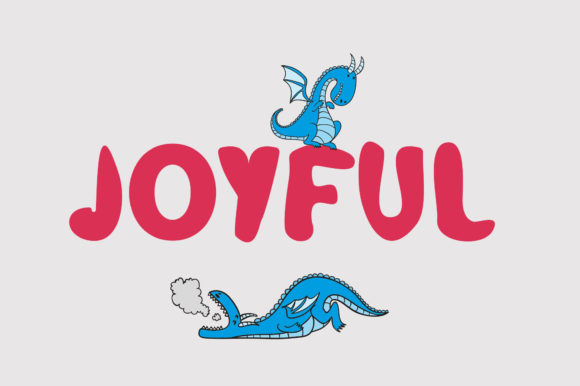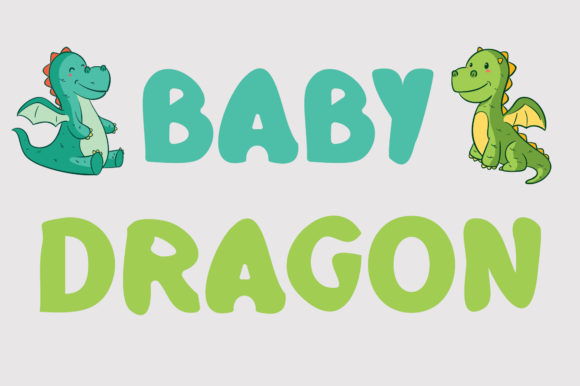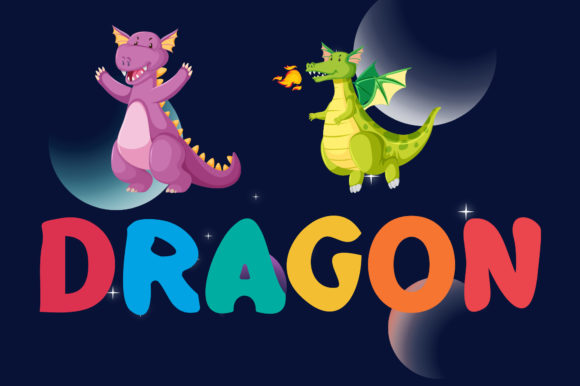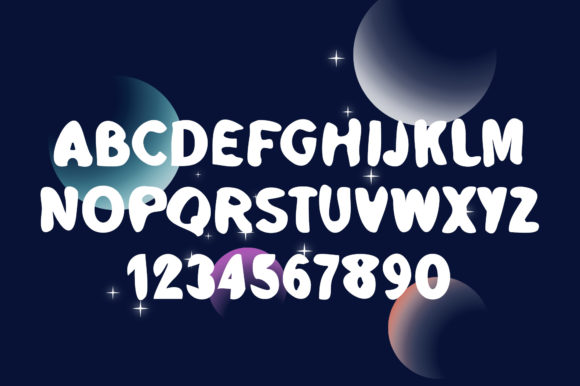
Introduction to Little Dragon Font
Do you remember the moment when you finally found the perfect font for your creative project? The one that captures the essence of your design and leaves a lasting impression on your audience? For many designers, that moment is what drives them to keep pushing the boundaries of creativity. And for those who specialize in children’s content, the search for the perfect font is a crucial one.
Enter the Little Dragon Font, a delightful and playful cartoon font that has captured the hearts of designers worldwide. With its smooth curves and cute, adorable look, this font is perfect for children’s books, greeting cards, toys, posters, and even baby clothing. Whether you’re working on a design project for a young client or just want to add a touch of whimsy to your creative output, the Little Dragon Font is a valuable resource that’s sure to deliver.
Key Features of Little Dragon Font
- High-quality design resource suitable for creative projects, offering a unique and stylish look.
Honest Review: Little Dragon Font
I recently came across the Little Dragon Font, a free download that caught my attention due to its high quality and unique design. As a designer, I appreciate any reliable design resource that can aid in my creative project.
- ✨ Unique and playful design style
- ⚠️ Limited character set, which may not be suitable for longer text
Overall, I find the Little Dragon Font to be a great addition to any designer’s toolkit. While it may not be perfect, its unique design and ease of use make it a valuable resource for creative projects, especially those requiring a digital presence.
Tips for Getting the Most Out of Little Dragon Font
Little Dragon Font is ideal for use in logos, branding materials, and marketing materials. It’s also perfect for creating invitations, posters, and other creative projects that require a unique and eye-catching design.